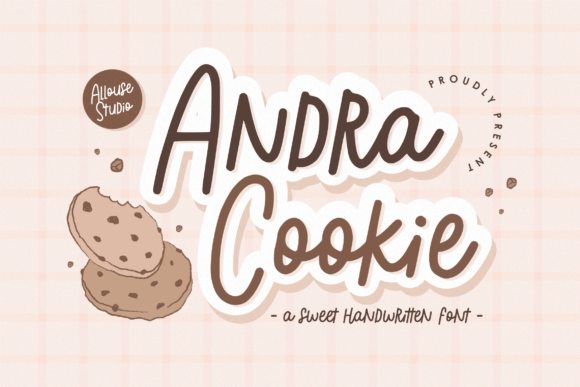
Introduction to Andra Cookie Font
Andra Cookie A Sweet Handwritten Font Andra Cookie is perfect for product packaging, branding project, magazines, social media, weddings, or just used to express words above the background.